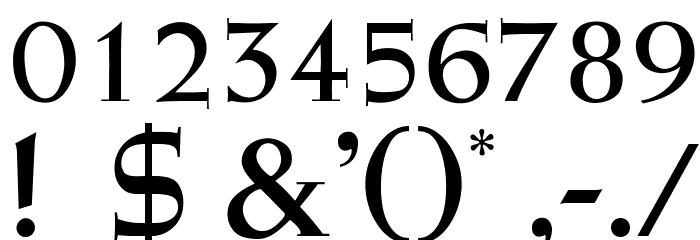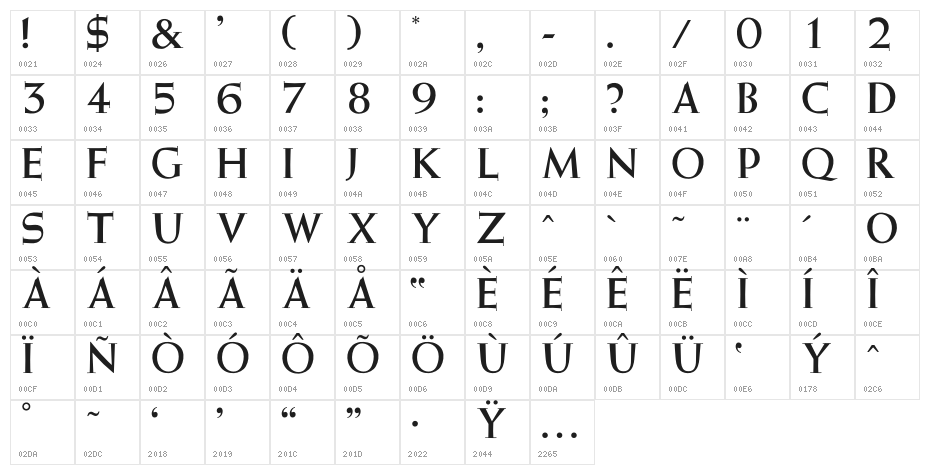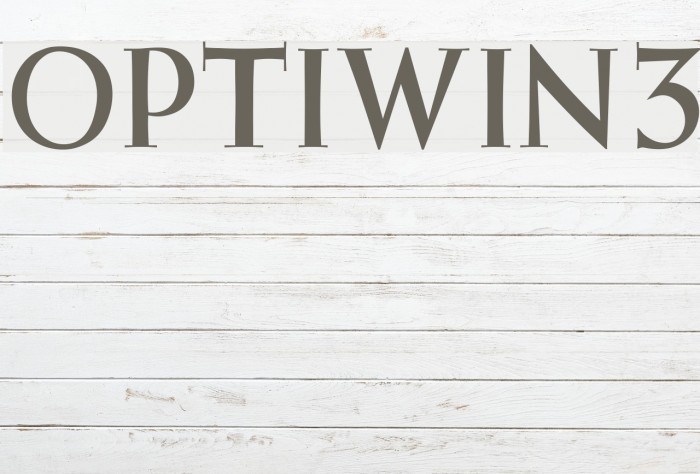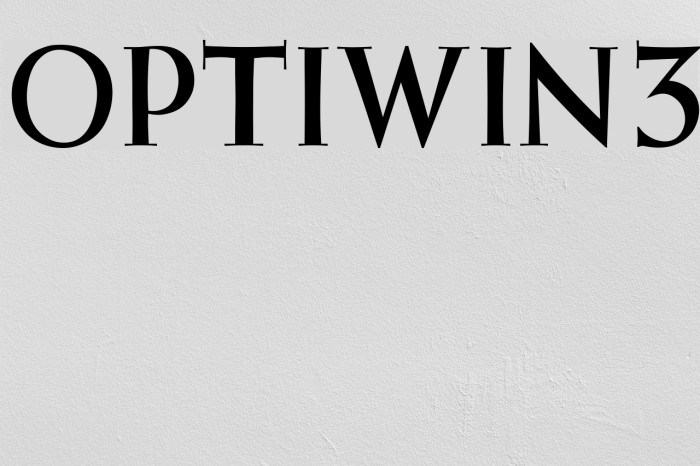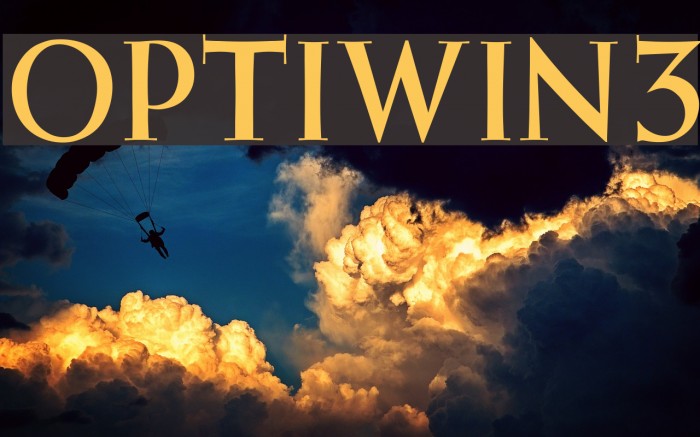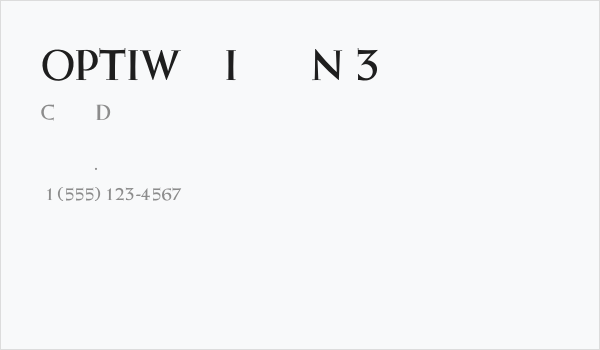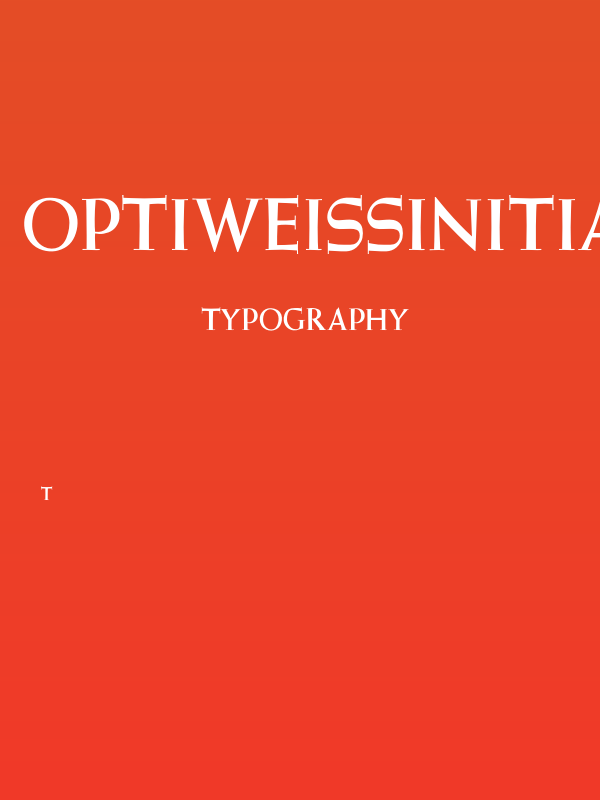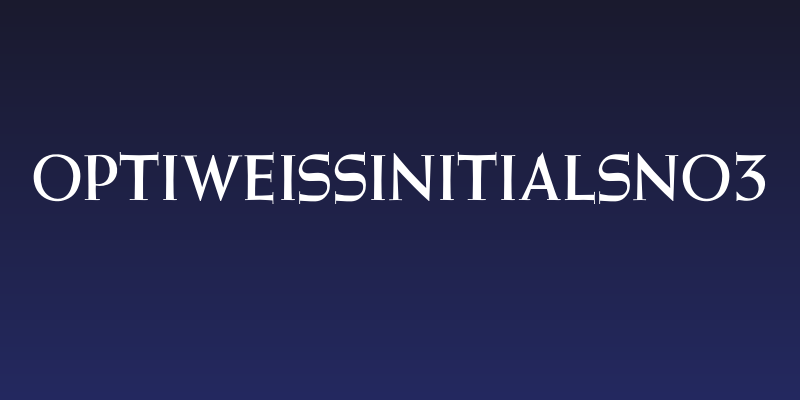
OPTIWeissInitialsNo3 Font
OPTIWeissInitialsNo3 Description
This font features a classic serif style with elegant and sharp serifs that give it a refined and sophisticated appearance. The uppercase letters are bold and commanding, while the numerals and special characters maintain a consistent style that complements the overall design. The font's structure is well-balanced, with a medium contrast in stroke thickness that enhances readability. The spacing between characters is normal, allowing for clear legibility in various applications. Its timeless design makes it suitable for projects that require a touch of elegance and formality.
| Use Case | Headlines, Logos, Editorial design |
| Proposed Projects | Ideal for formal invitations, book covers, branding, and editorial design. |